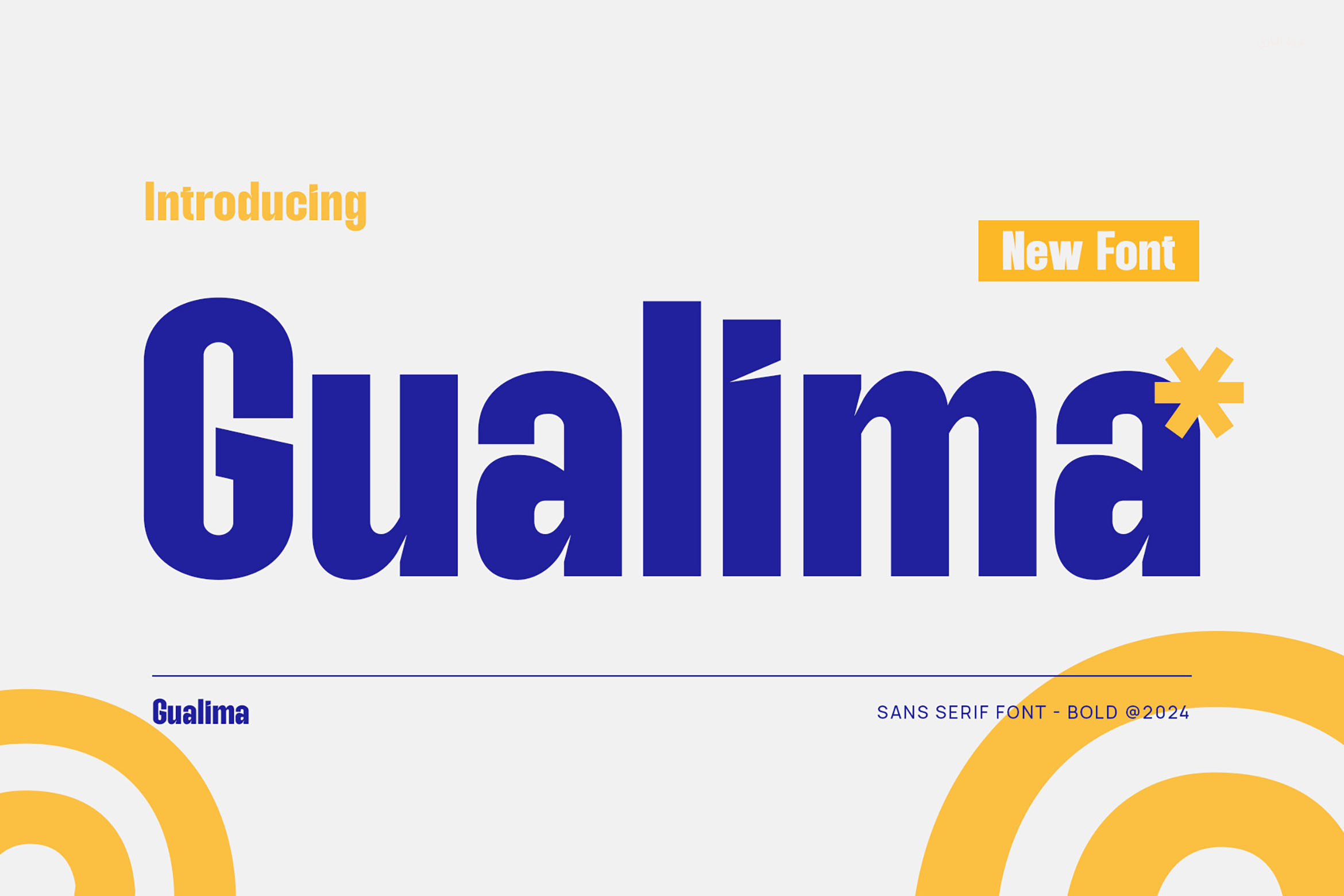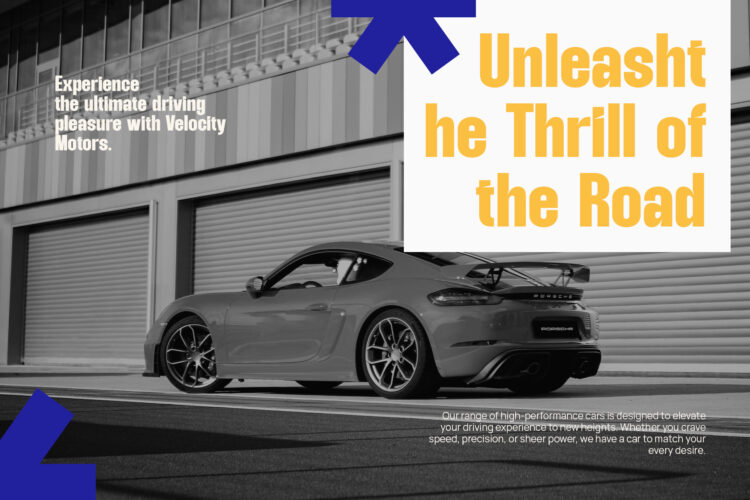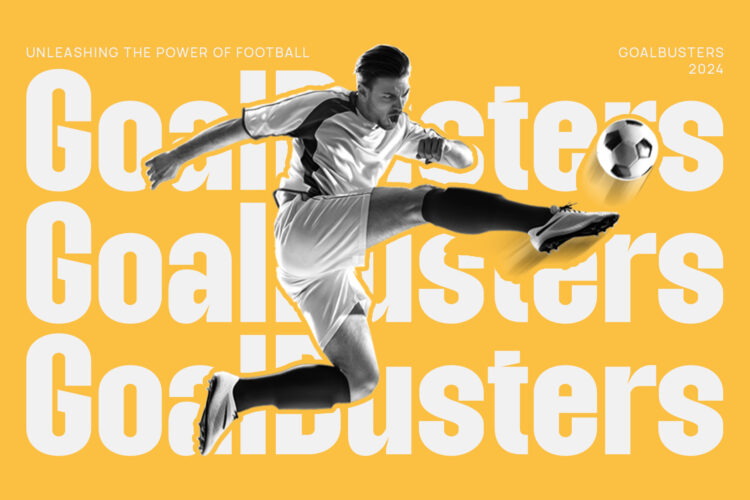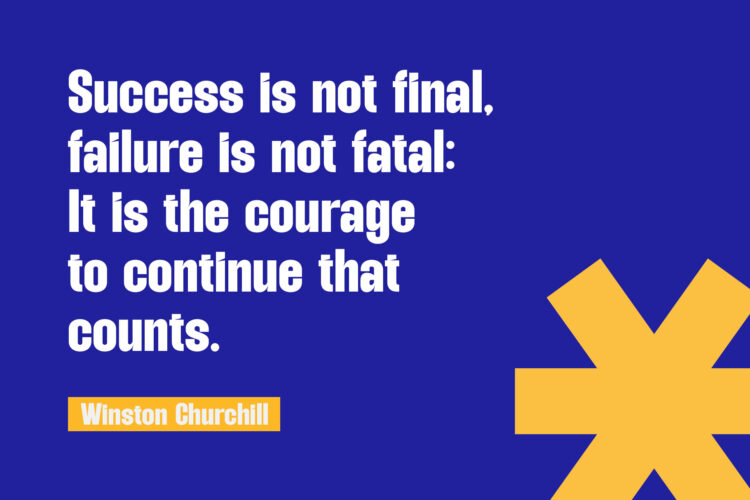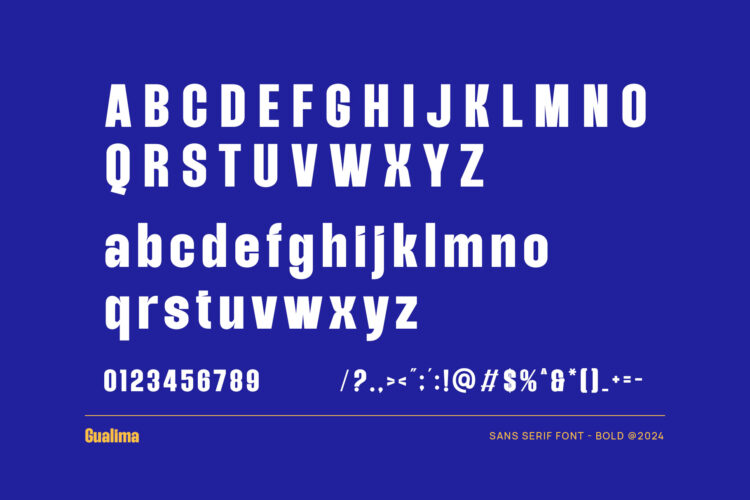
Introducing our new Gualima, modern sans serif font with elegant style this is perfect for branding, logos, invitation, magazines, product packaging and more.
Gualima – Modern Condensed Sans Serif